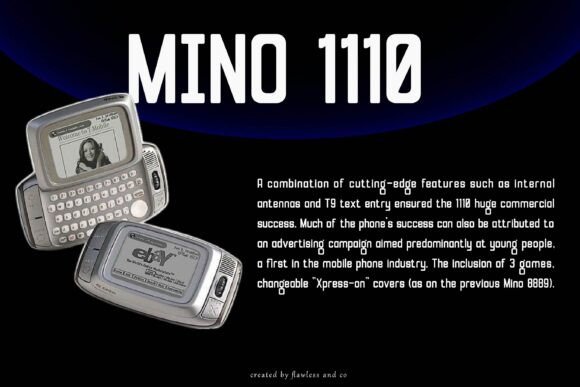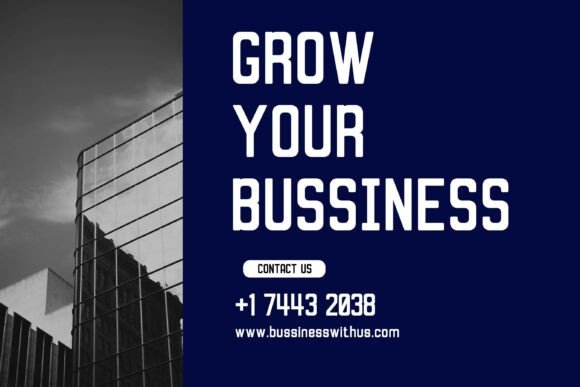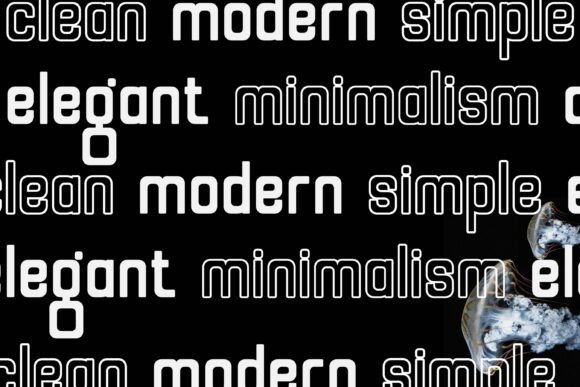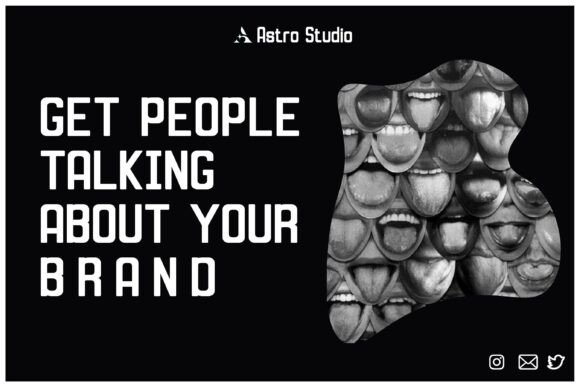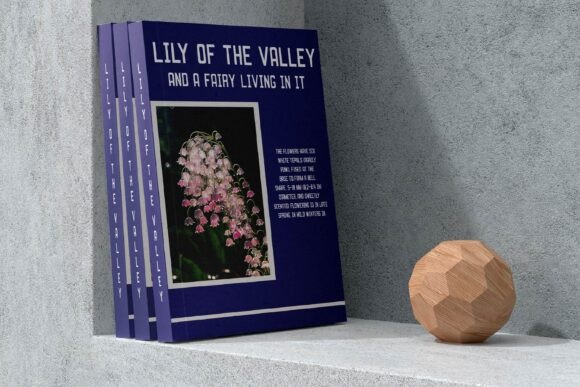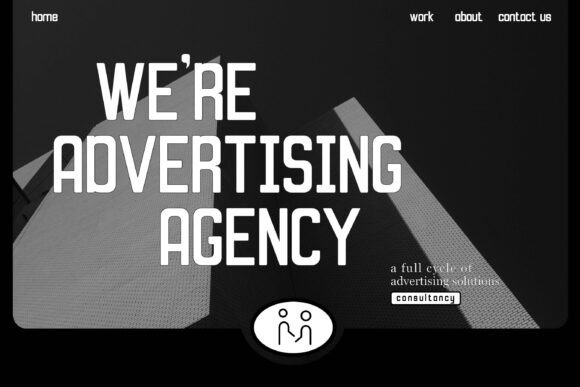
Unlocking the Cosmic Aesthetic: Astrionis Font
As designers, we’ve all had those moments when we’re brainstorming ideas for a project and suddenly, a spark of inspiration strikes. Maybe it’s the hum of a spaceship’s engines, the glow of a futuristic cityscape, or the sleek lines of a cutting-edge spacecraft. Whatever it is, that spark often leads us down a rabbit hole of creativity, and it’s precisely this kind of inspiration that the Astrionis Font is designed to tap into.
Developed to evoke the essence of sci-fi and space-age aesthetics, Astrionis Font is a bold, geometric display font that’s perfect for projects that demand a sophisticated, high-tech, and visionary feel. Whether you’re working on a sci-fi movie title, game interface, or tech branding project, Astrionis Font is an invaluable tool that can help you convey a sense of forward-thinking innovation.
- Unique Characteristics: Astrionis Font features a unique blend of modern and classic elements, with a focus on clean lines, geometric shapes, and subtle flair.
- Font Style: Astrionis Font comes in a range of styles, including Regular, Italic, Bold, and Bold Italic.
- Language Support: Astrionis Font supports a wide range of languages, including Latin, Cyrillic, and Greek alphabets.
Astrionis Font Review
As a designer, I was excited to dive into the Astrionis Font, and overall, I’m pleased with the experience. ✨ Here are some aspects that stood out to me:
- Beautiful and elegant feel: The Astrionis Font exudes a sense of sophistication and refinement, making it perfect for high-end designs and luxury brands.
- High-quality typography: The font is crisp, clear, and easy to read, even at smaller sizes.
- Great for headings: The Astrionis Font is ideal for headings and titles, as it adds a touch of elegance and sophistication to any design.
- Limited character set: The Astrionis Font is a premium font, but its character set is limited, which may not be suitable for designs that require a wide range of characters.
- No bold weights: While the font has a range of weights, it lacks bold weights, which may not be ideal for designs that require a bold, attention-grabbing font.
Overall, the Astrionis Font is a great addition to any designer’s toolkit. While it has some limitations, its elegant feel and high-quality typography make it a great choice for luxury brands and high-end designs. With a bit of creativity and flexibility, you can work around its limitations and create stunning designs that showcase the beauty of this font.
Astrionis Font is suitable for a wide range of applications, including:
- Brand identity and logos
- Editorial content and publications
Tip: Use the font to create a professional and modern
The recommended line height for Astrionis Font is 1.2-1.5 times the font size. This ensures that the text is easy to read and visually appealing. However, designers can adjust the line height to suit their specific design needs.